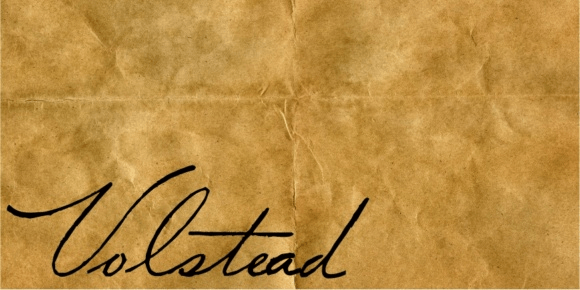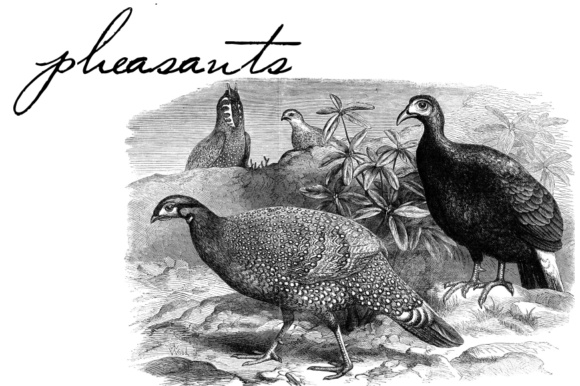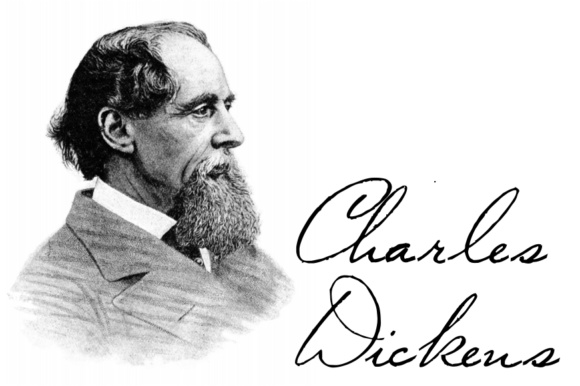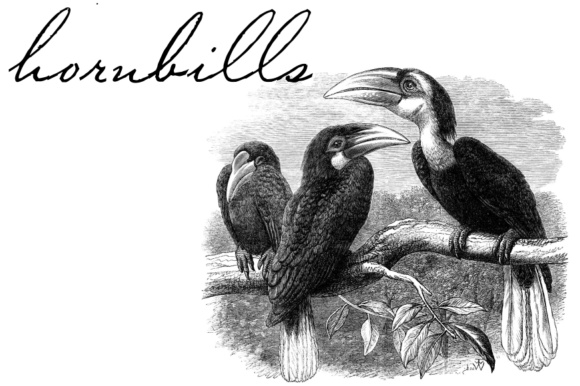
Volstead
Font Family by Intellecta Design
Volstead is a casual, handwrittten font with tons of movement and style. This script looks anchored in yesteryear, and can add a thematic feel to your works.